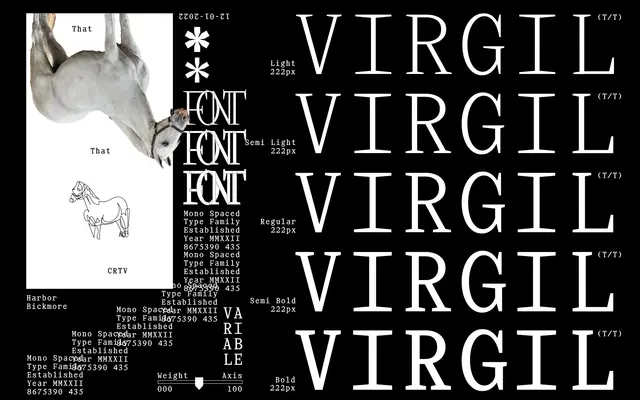
Virgil Mono Variable Collection
A variable monospaced typeface with deliberately harsh, angular forms intended for contemporary graphic design work.
Five weights from Light to Bold are offered as a variable font, giving designers fluid control across the weight axis. The letterforms are sharply geometric with an intentional angularity that distinguishes it from neutral coding or text mono faces. Glyph coverage spans Latin Extended-A and includes standard OpenType features such as ligatures, superscripts and currency symbols.
Described by the foundry as a variable monospaced typeface with harsh, angular letterforms, placing it squarely in the monospaced category with a geometric, display-adjacent character.